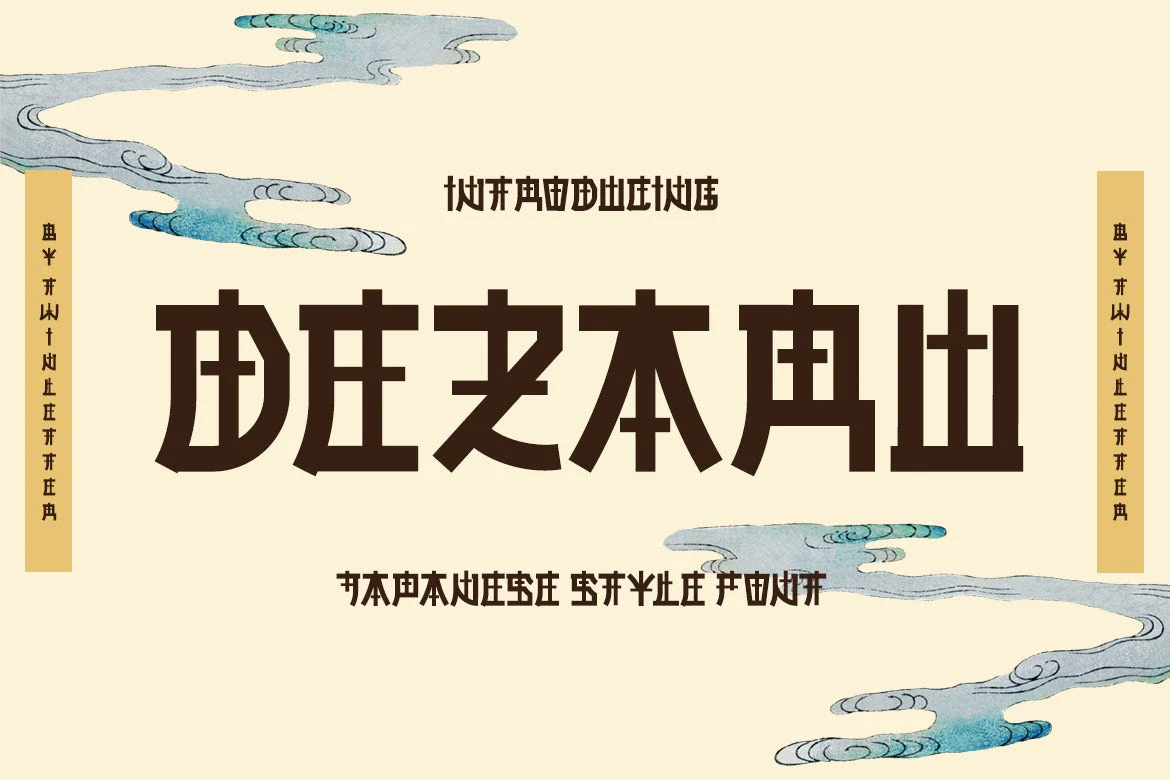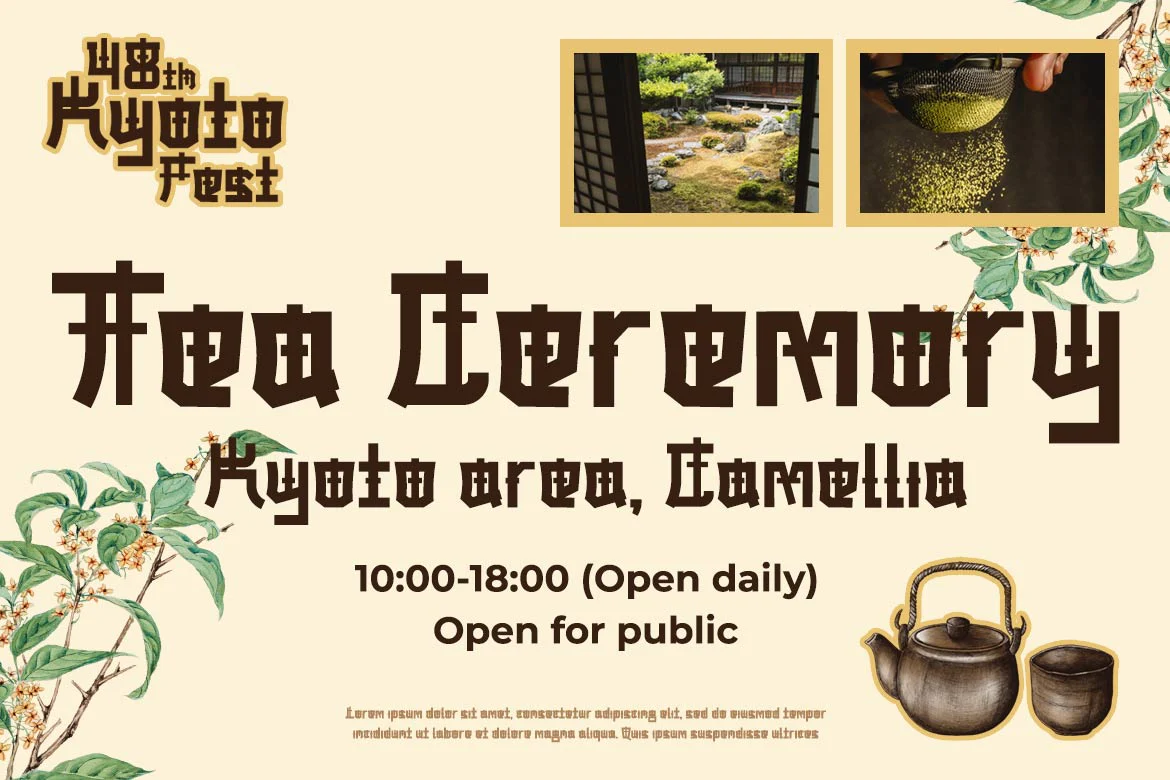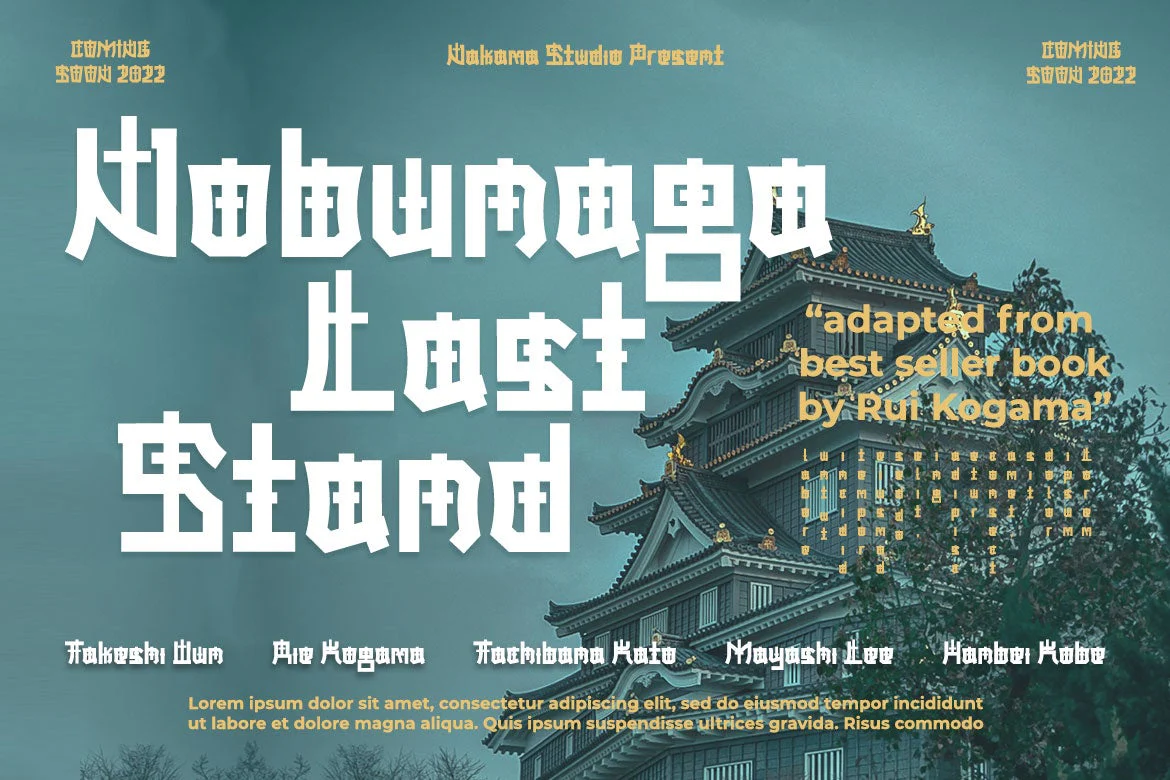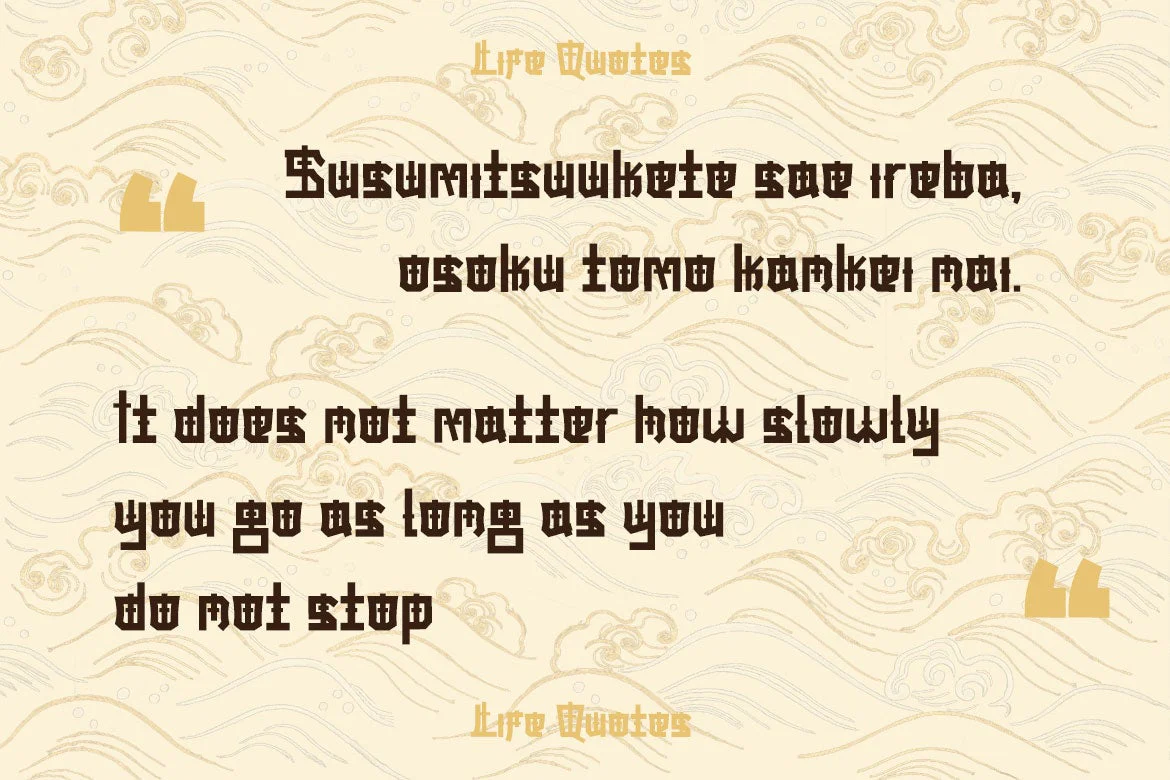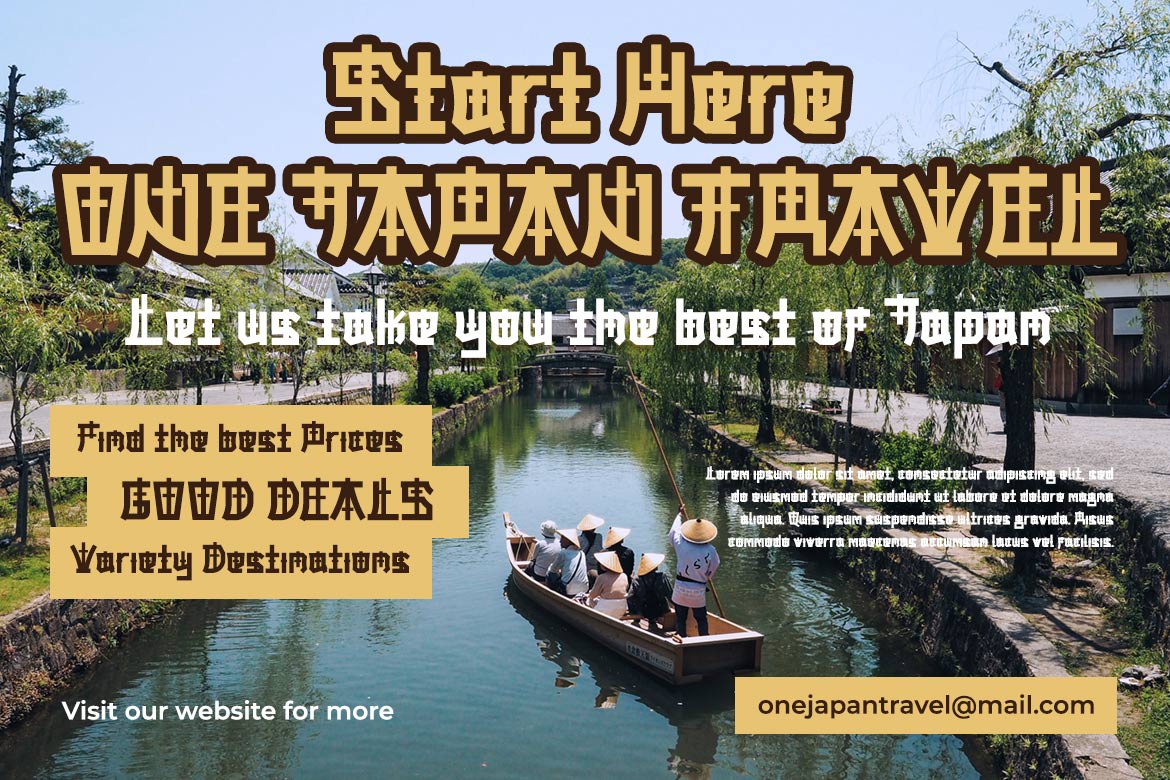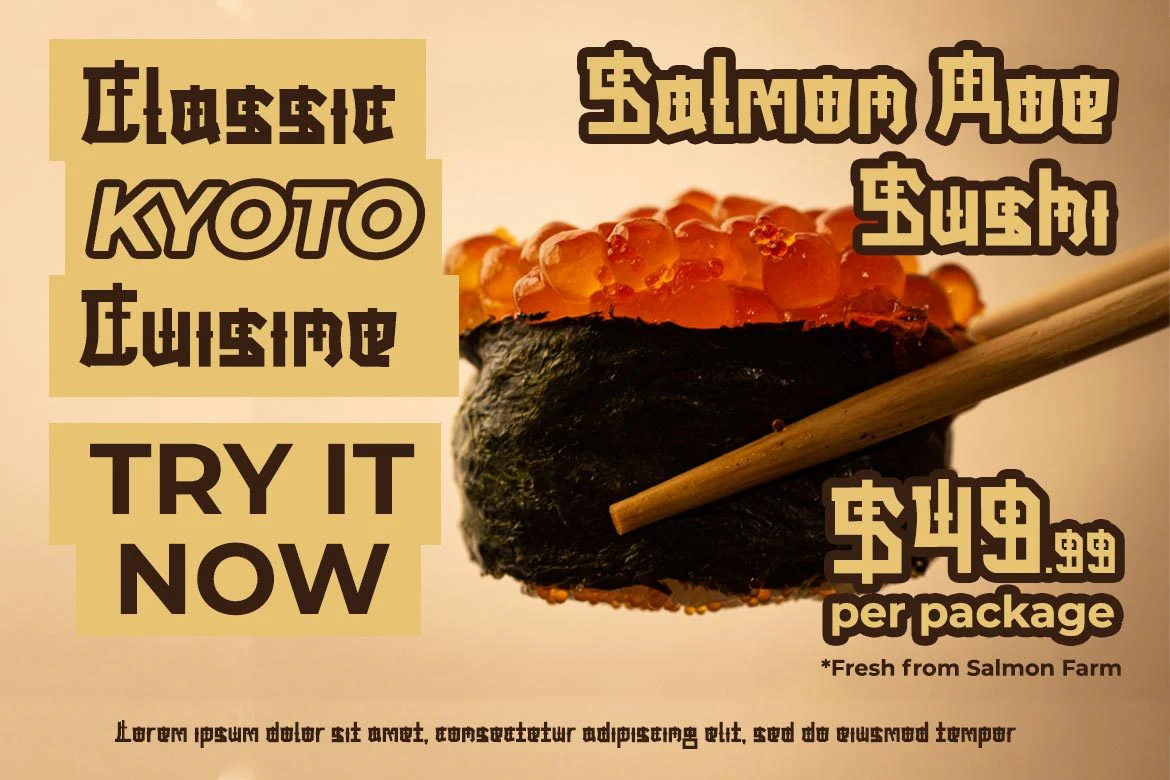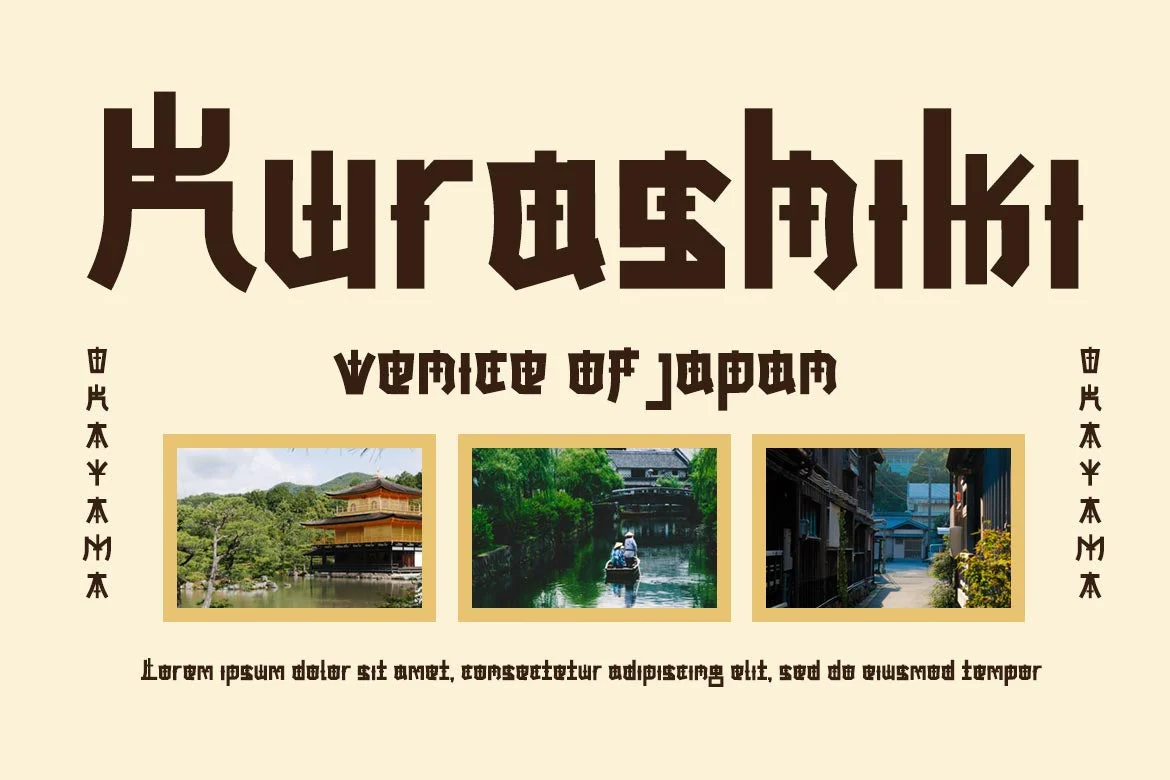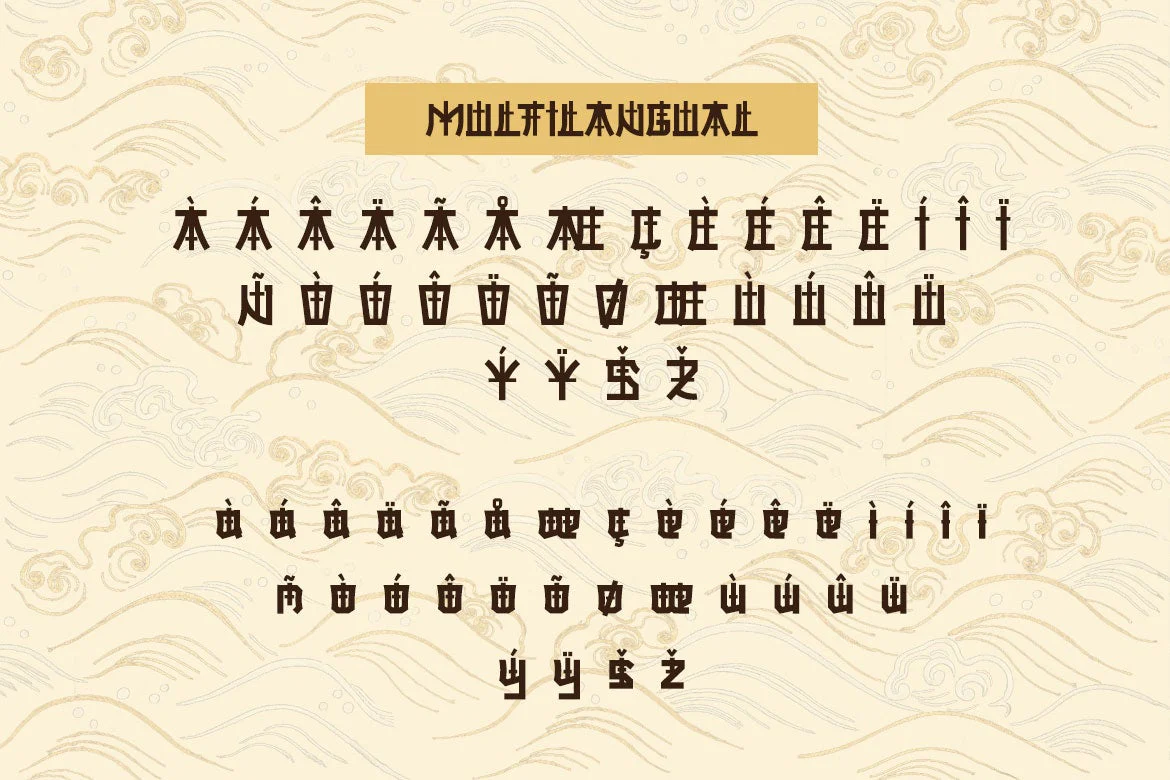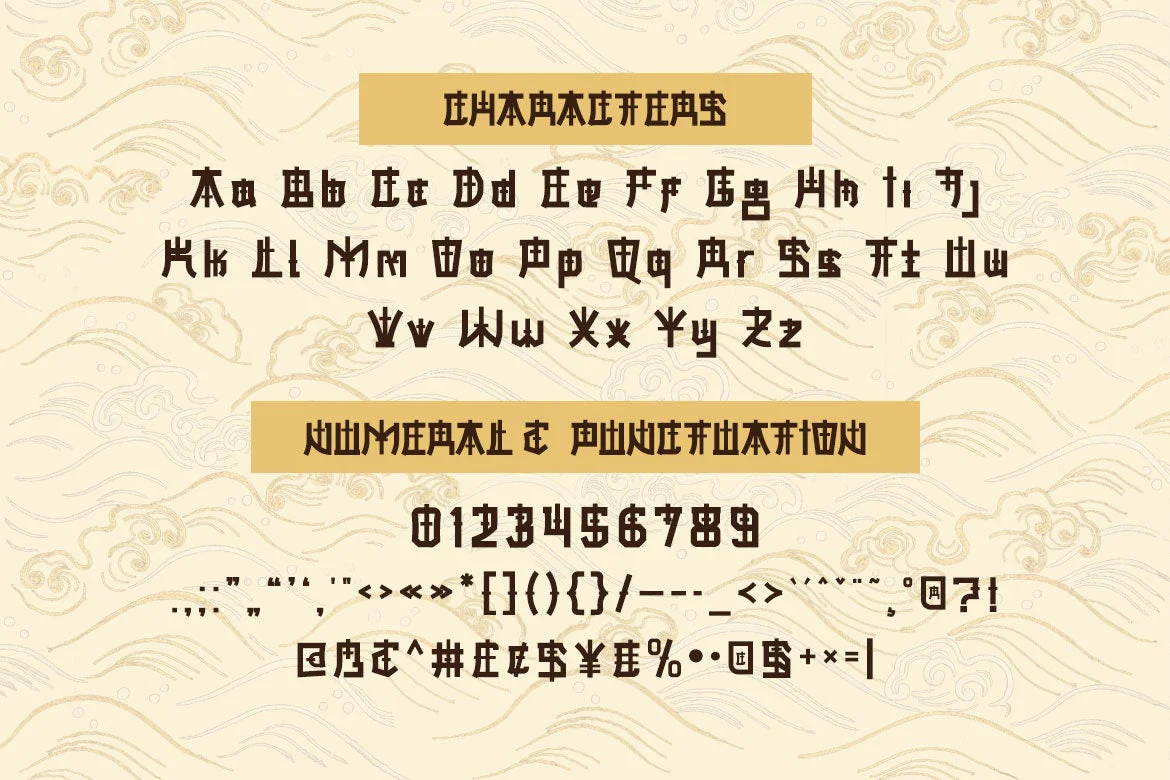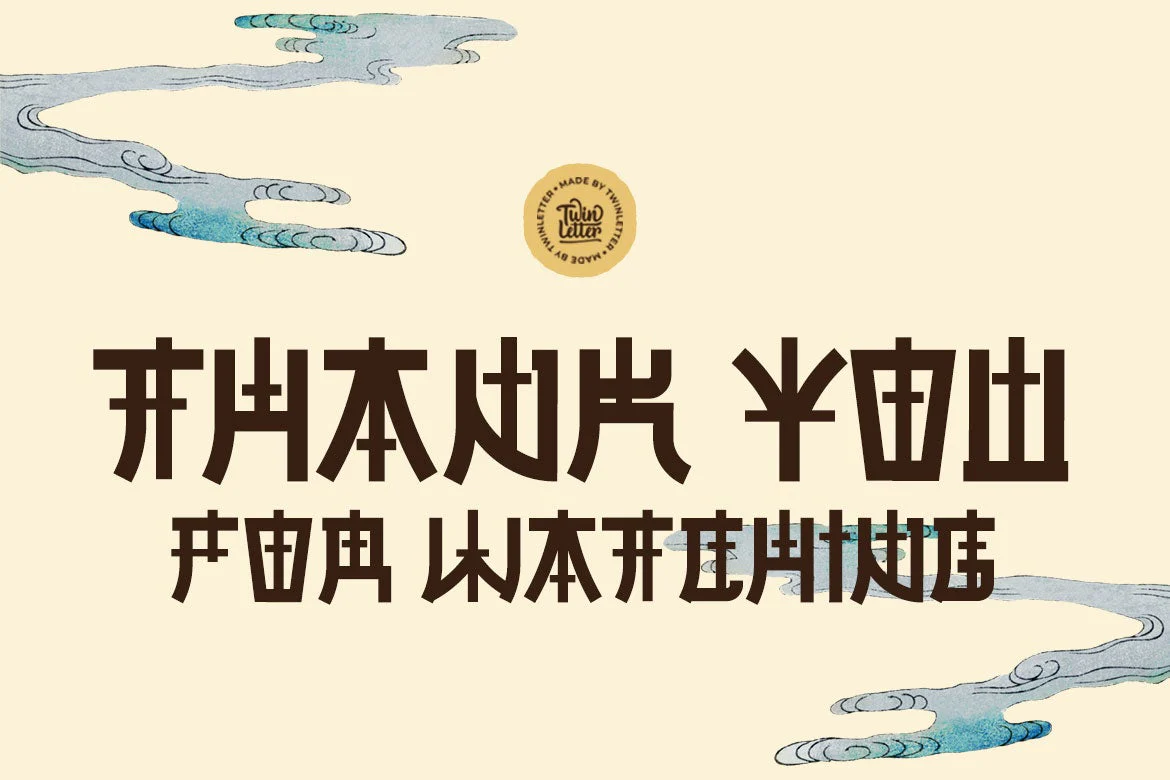
DEZARU Faux Japanese Font
DEZARU is a fictitious Japanese display font created by combining Japanese letters with well-known and understood san serif fonts from throughout the world. Imagine all promotional materials can be understood and understood by all audiences in various parts of the world, your message will reach the hearts of the audience, and your brand will be very easy to remember by many people because the display of this font is contemporary and different from the others.
Logotypes, food banners, branding, brochure, posters, movie titles, book titles, quotes, and more may all benefit from this font.
Of course, using this font in your various design projects will make them excellent and outstanding; many viewers are drawn to the striking and unusual graphic display.
Start utilizing this typeface in your projects to make them stand out.
DEZARU is a fictitious Japanese display font created by combining Japanese letters with well-known and understood san serif fonts from throughout the world. Imagine all promotional materials can be understood and understood by all audiences in various parts of the world, your message will reach the hearts of the audience, and your brand will be very easy to remember by many people because the display of this font is contemporary and different from the others.
Logotypes, food banners, branding, brochure, posters, movie titles, book titles, quotes, and more may all benefit from this font.
Of course, using this font in your various design projects will make them excellent and outstanding; many viewers are drawn to the striking and unusual graphic display.
Start utilizing this typeface in your projects to make them stand out.